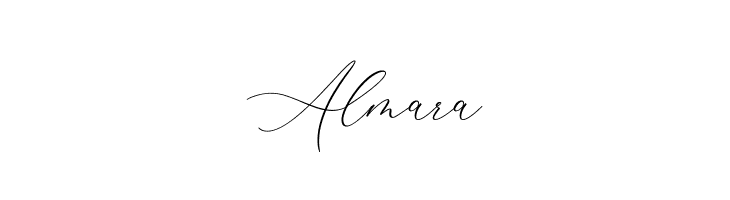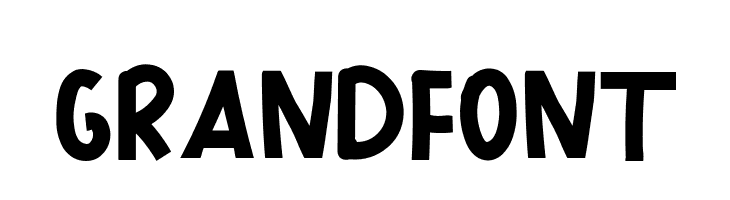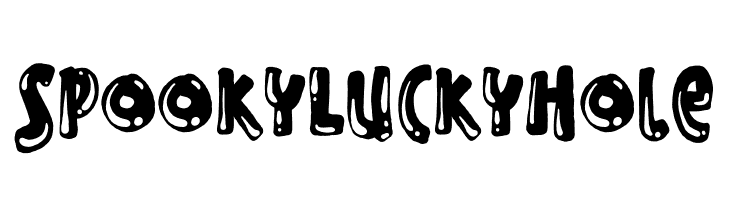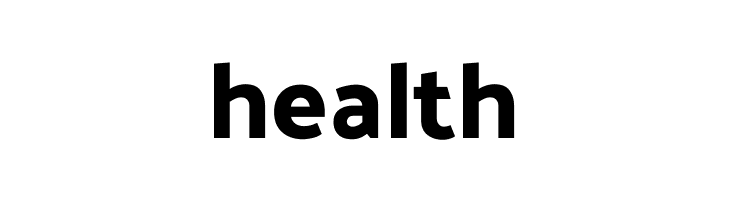
An elegant script font with fluid, cursive strokes and a sophisticated appearance.
A bold, rounded font with a playful and chunky style.
A decorative font with characters inside maple leaf outlines.
A bold, geometric font with a digital, pixelated style.
A bold, graffiti-inspired font with angular, distressed letters.
A modern, geometric sans-serif font with clean lines and high legibility.
An elegant serif font with a classic italic style and refined serifs.
Playful handwritten sans-serif font.